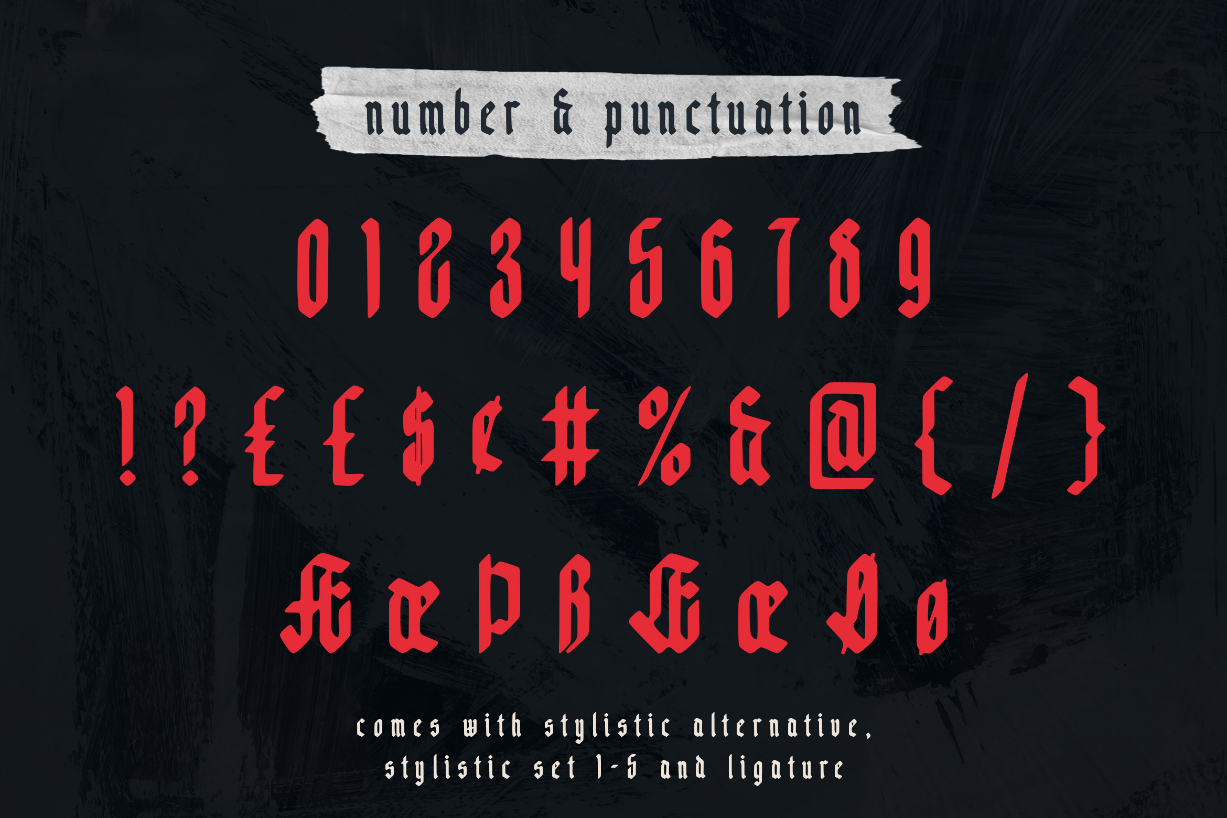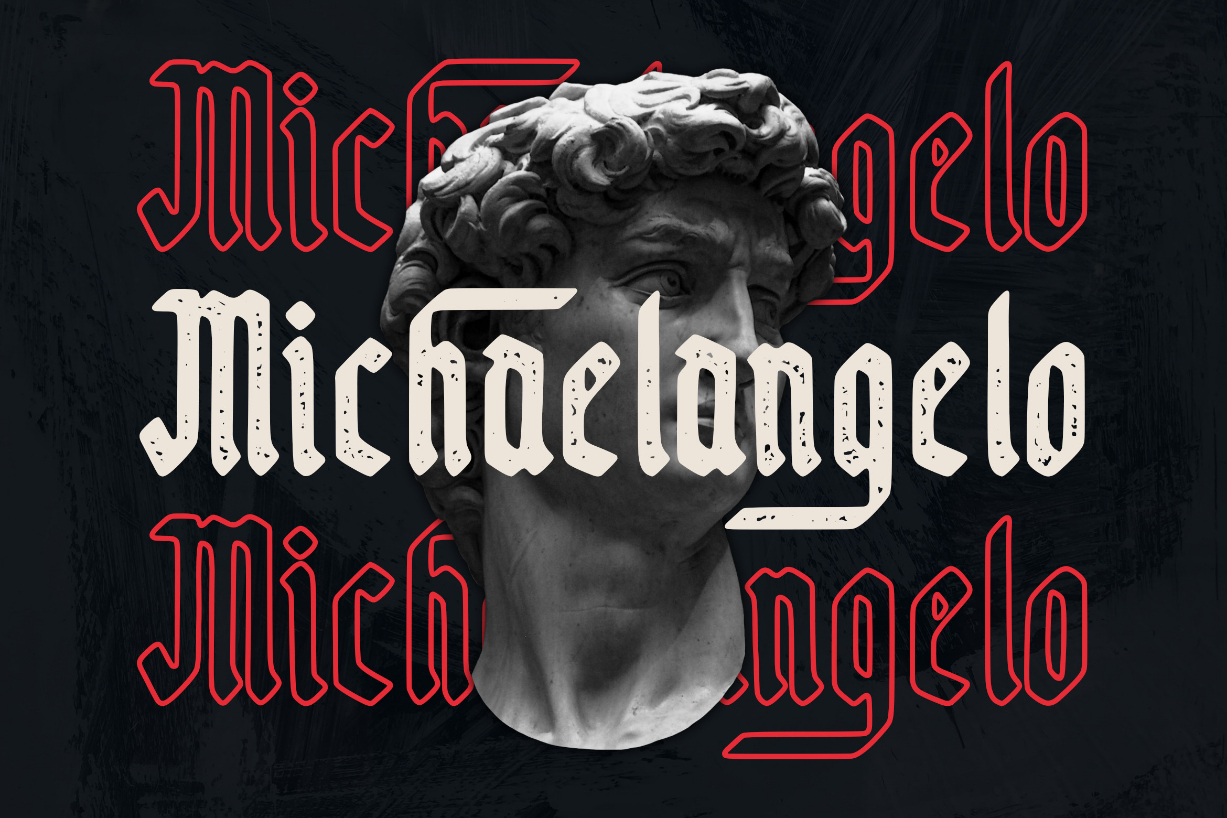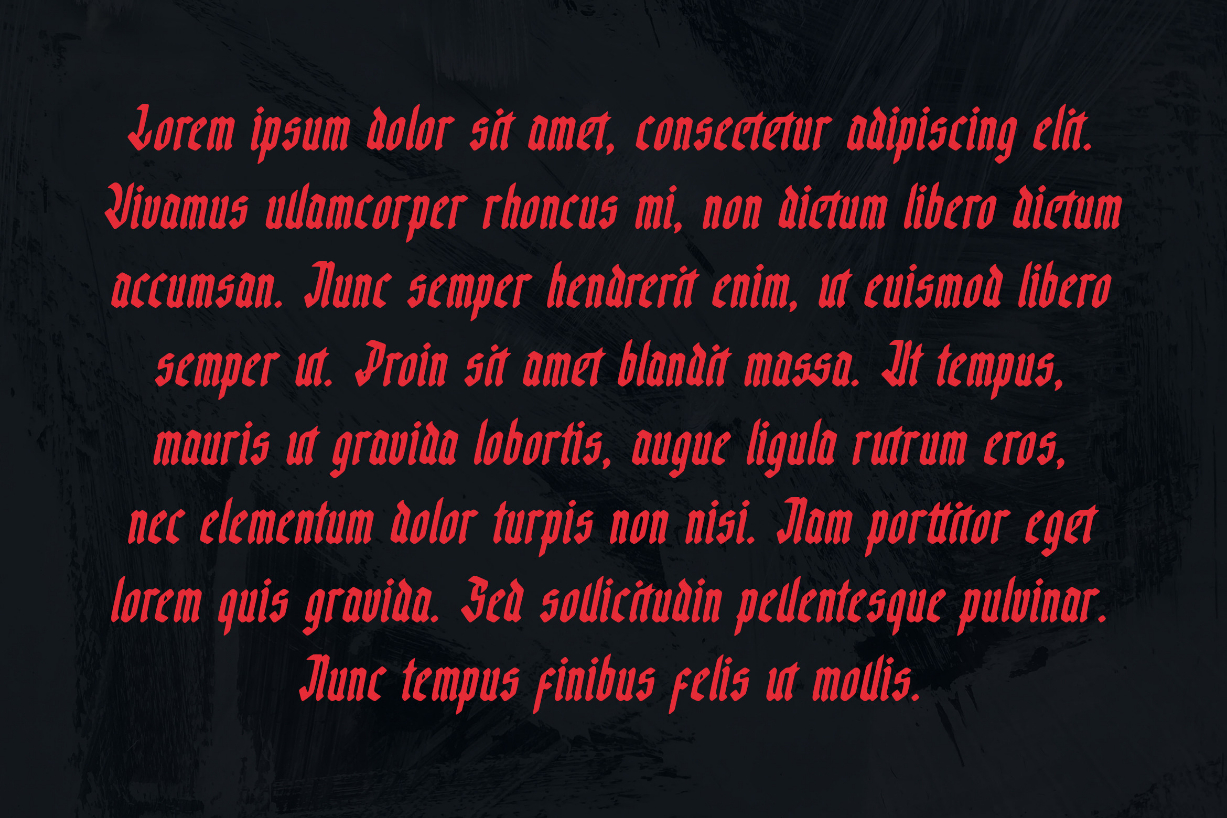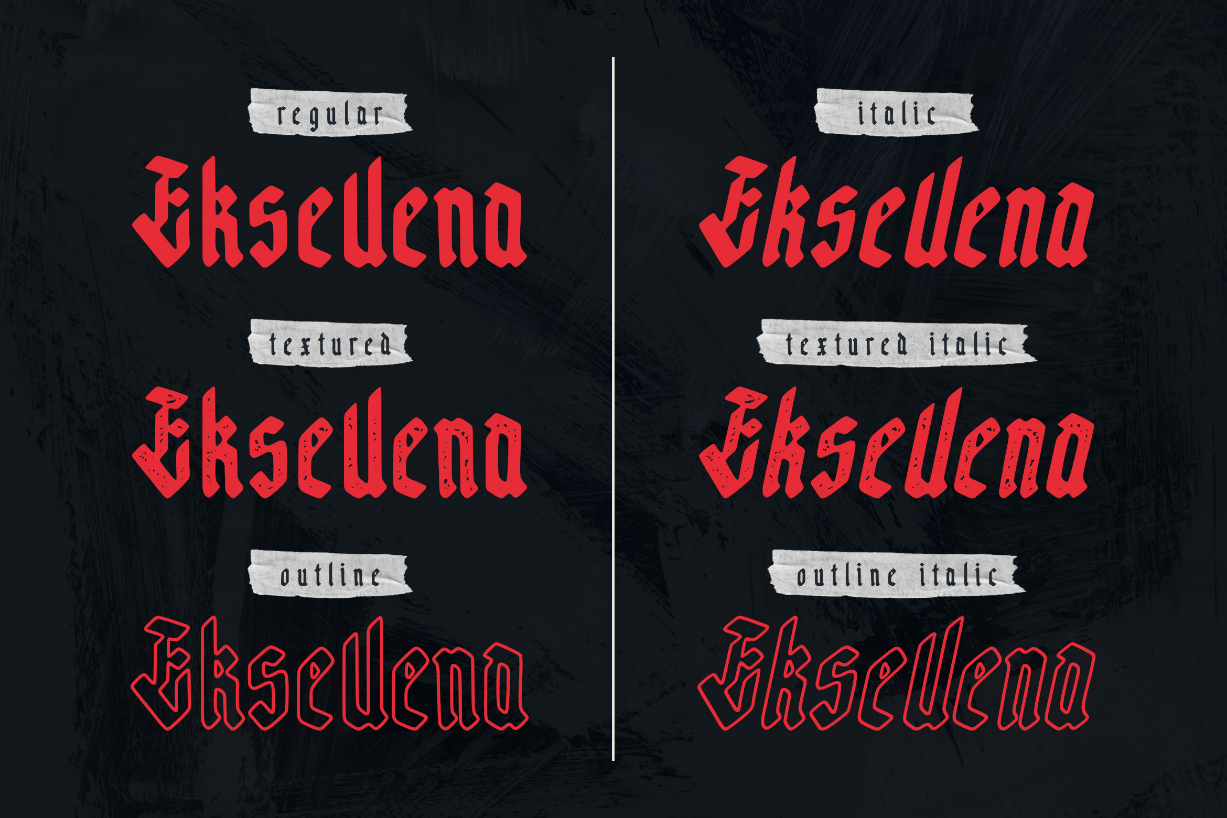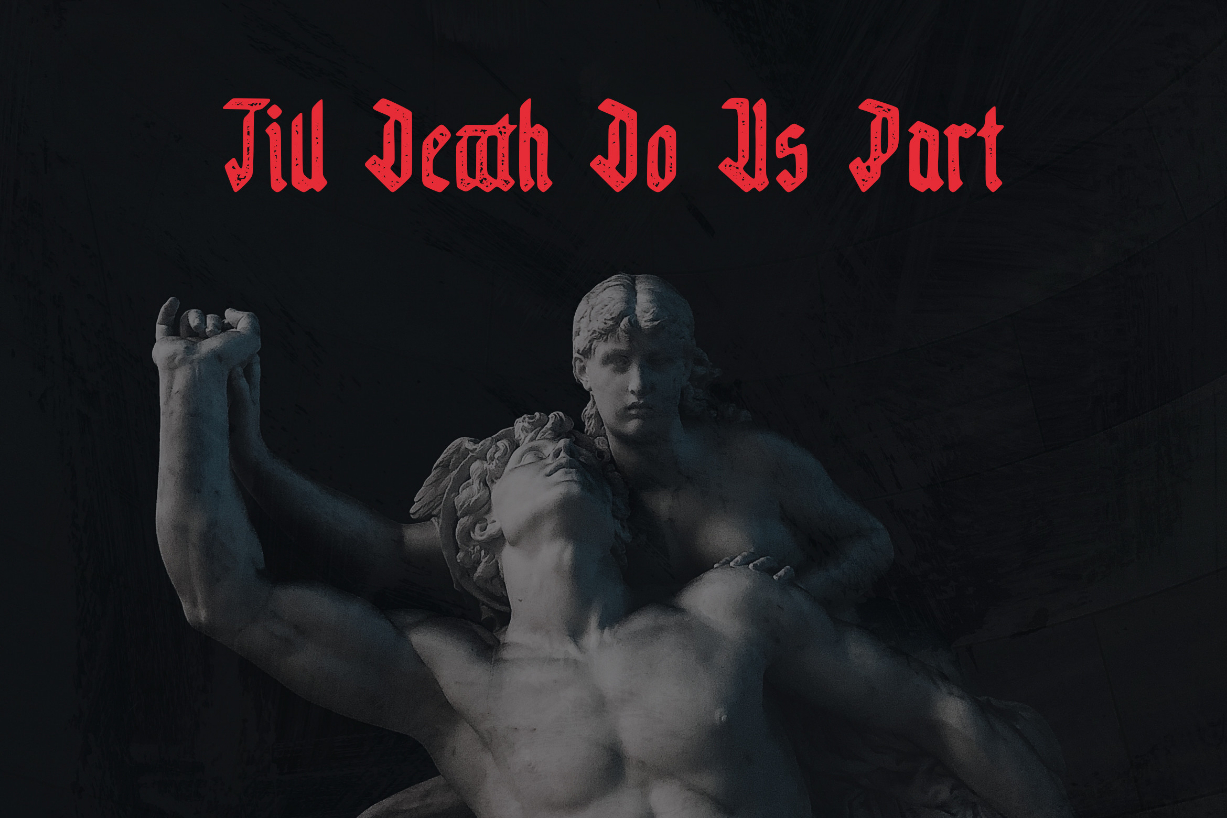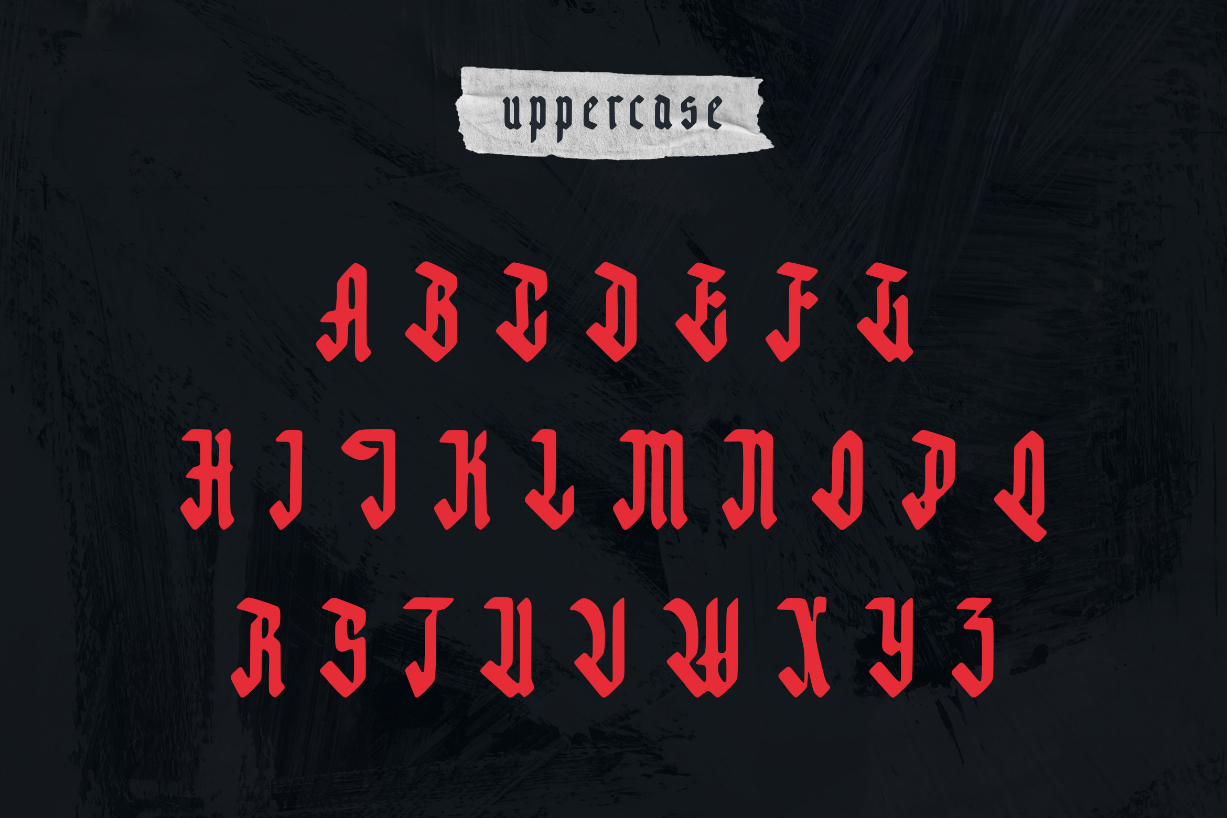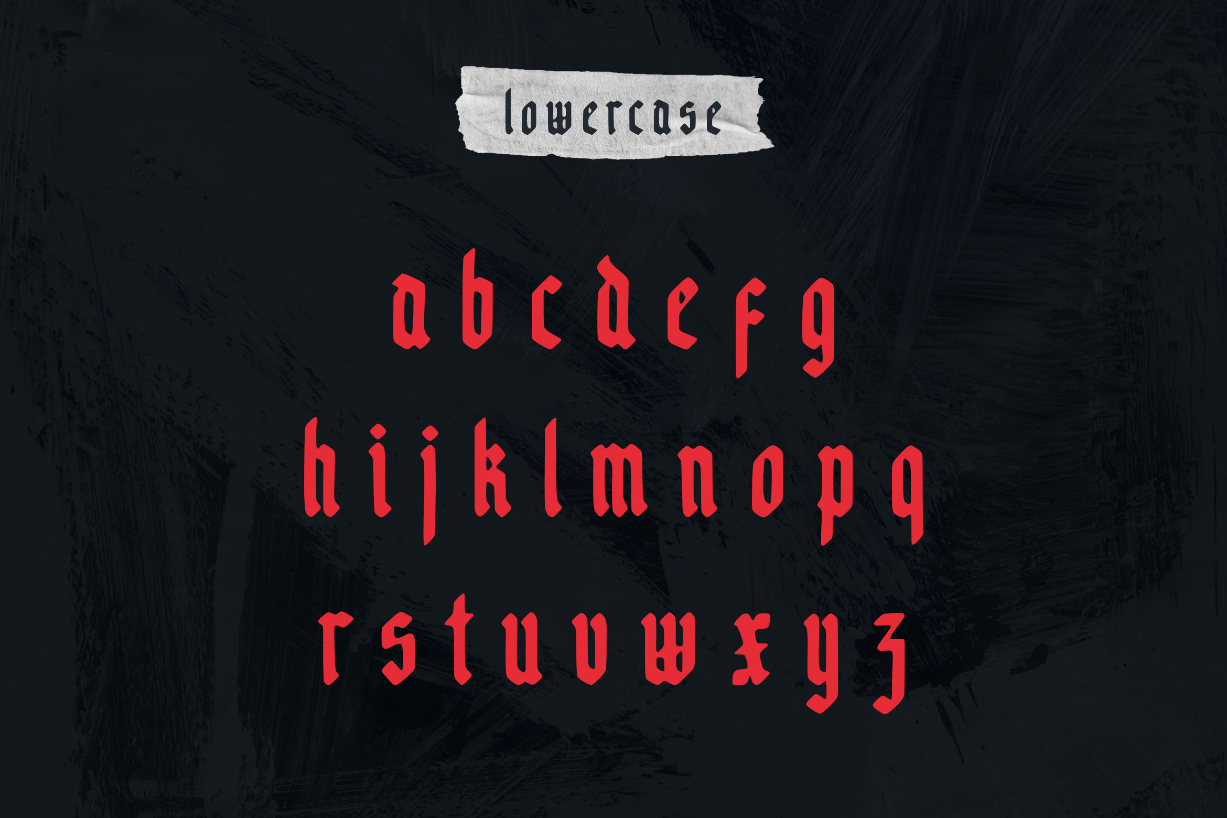
Eksellena Font
About Eksellena Font
Eksellena is a bold, rough textured and highly detailed blackletter font. Masterfully designed to become a true favorite, this font has the potential to bring each of your creative ideas to the highest level!